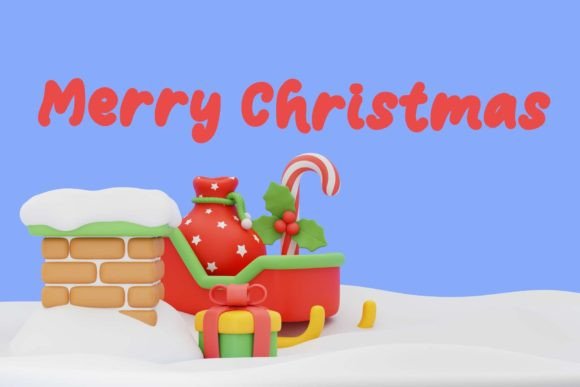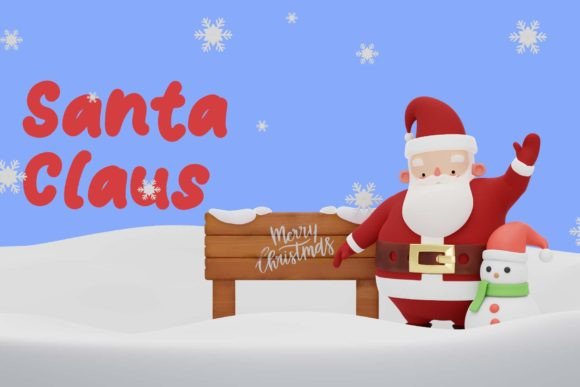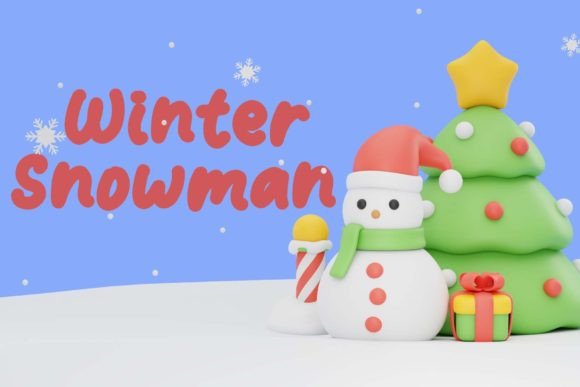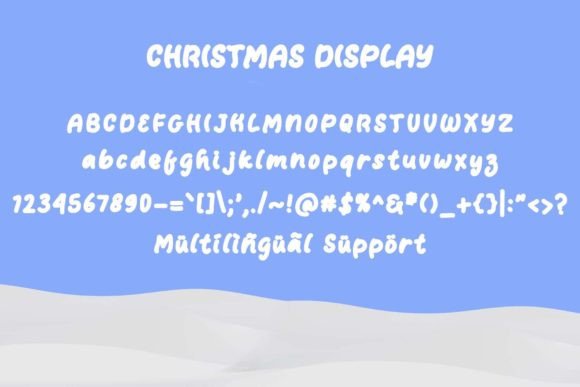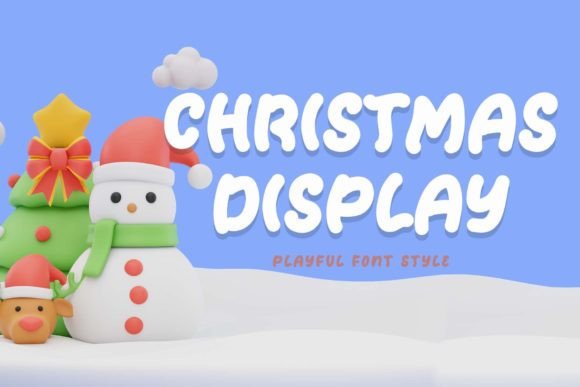
Deck the Halls with Christmas Display Font: A Festive Typographic Delight
As the holiday season approaches, designers and crafters are on the lookout for the perfect typography to add a touch of festive flair to their projects. Look no further than Christmas Display Font, a charming and distinctive display font that’s sure to make your creations merry and bright. In this article, we’ll dive into the features and benefits of Christmas Display Font, and explore the many ways you can use it to make your holiday designs shine.
What is Christmas Display Font?
Christmas Display Font is a cute and unique display font that’s specifically designed to capture the spirit of the holiday season. With its playful and whimsical style, this font is perfect for adding a touch of festive fun to a wide range of projects, from Christmas cards and invitations to book covers and party decorations.
Key Features of Christmas Display Font
So, what makes Christmas Display Font so special? Here are just a few of its key features:
• Uppercase and Lowercase Letters: Christmas Display Font includes both uppercase and lowercase letters, giving you the flexibility to create a wide range of designs and layouts.
• Numerals and Punctuation: In addition to letters, this font also includes numerals and punctuation marks, making it easy to create complete and cohesive designs.
• Multilingual Support: Christmas Display Font supports multiple languages, making it a great choice for designers and crafters who work with international clients or want to create designs for a global audience.
Uses for Christmas Display Font
So, how can you use Christmas Display Font in your designs? The possibilities are endless! Here are a few ideas to get you started:
• Christmas Cards and Invitations: Create festive and fun Christmas cards and invitations that will delight your friends and family.
• Book Covers and Titles: Add a touch of holiday cheer to your book covers and titles, perfect for Christmas-themed novels, cookbooks, or children’s books.
• Christmas Parties and Events: Use Christmas Display Font to create eye-catching posters, flyers, and decorations for your holiday parties and events.
• Valentine’s Day and Easter: This font is not just limited to Christmas – it’s also perfect for Valentine’s Day, Easter, and other spring and winter holidays.
• Comics and Illustrations: Add a playful touch to your comics, illustrations, and cartoons with Christmas Display Font.
Why Choose Christmas Display Font?
With so many fonts to choose from, why should you choose Christmas Display Font? Here are just a few reasons:
• Unique and Eye-Catching: Christmas Display Font is a one-of-a-kind font that’s sure to grab attention and add a touch of festive fun to your designs.
• Easily Readable: Despite its playful style, Christmas Display Font is still easy to read, making it perfect for use in a wide range of designs and applications.
• Versatile: This font can be used in a wide range of projects, from digital designs to print materials.
Tips for Using Christmas Display Font
Here are a few tips for getting the most out of Christmas Display Font:
• Experiment with Sizes and Colors: Don’t be afraid to experiment with different sizes and colors to add visual interest to your designs.
• Pair with Other Fonts: Try pairing Christmas Display Font with other fonts to create a unique and eye-catching combination.
• Use in Combination with Images: This font looks great when used in combination with festive images and illustrations.